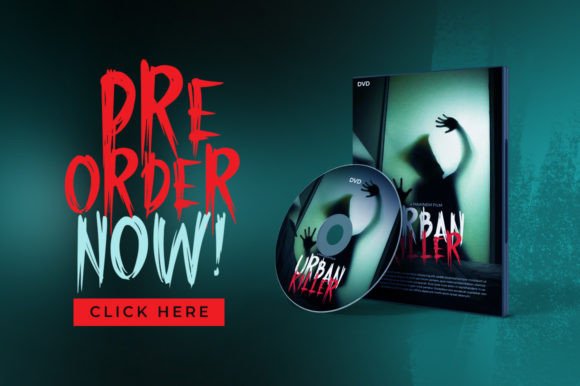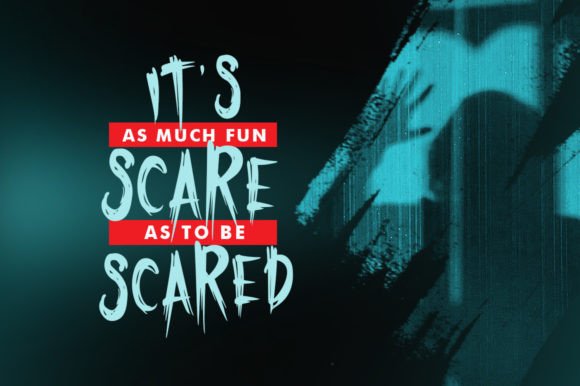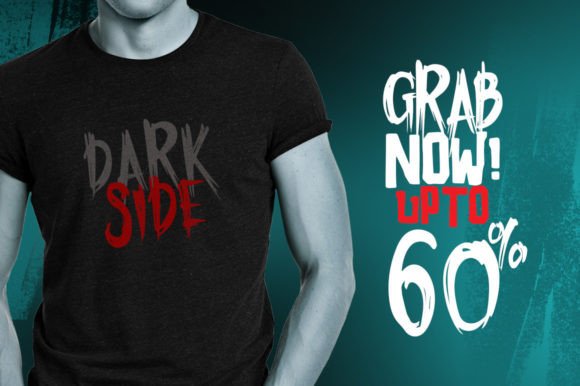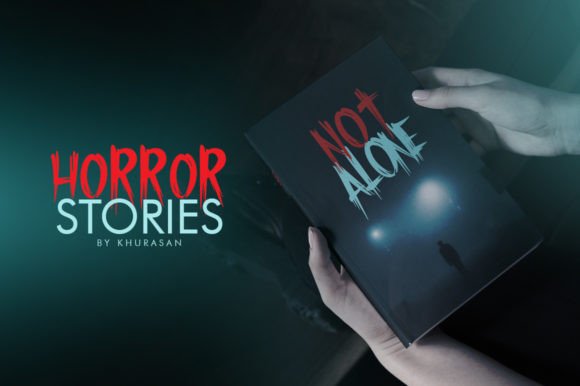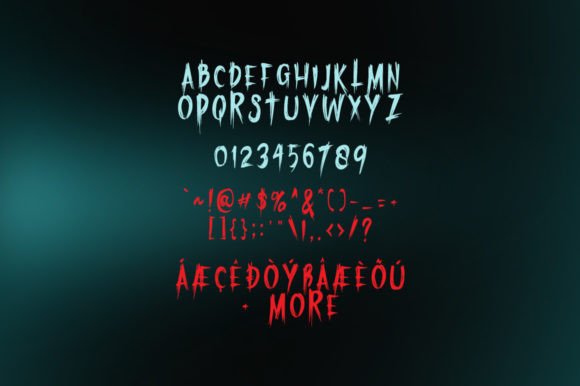
Unleash the Fear with Friday Terror Font: A Spooky Display Font for Horror and Halloween Designs
Are you a designer or crafter looking for a font that will add a touch of horror and spookiness to your designs? Look no further than the Friday Terror Font. This unique and attractive display font is perfect for creating eye-catching designs that will leave a lasting impression on your audience. In this article, we’ll take a closer look at the Friday Terror Font, its features, and how you can use it to create terrifyingly good designs.
What is Friday Terror Font?
The Friday Terror Font is a display font designed to evoke a sense of horror and fear. With its bold and eerie lettering, this font is perfect for creating designs that are attention-grabbing and unsettling. Whether you’re designing a poster, flyer, or social media graphic, the Friday Terror Font is sure to make your design stand out.
Key Features of Friday Terror Font
So, what makes the Friday Terror Font so special? Here are some of its key features:
- Unique and Attractive Design: The Friday Terror Font has a one-of-a-kind design that’s sure to grab attention. Its bold and eerie lettering makes it perfect for creating eye-catching designs.
- Versatile: Despite its horror theme, the Friday Terror Font looks great in a variety of contexts. Whether you’re designing a poster, flyer, or social media graphic, this font is sure to fit right in.
- Suitable for Horror and Halloween Concepts: As its name suggests, the Friday Terror Font is perfect for designs with horror and Halloween concepts. Use it to create spooky designs that will leave your audience shivering with fear.
How to Use Friday Terror Font in Your Designs
Now that we’ve covered the features of the Friday Terror Font, let’s talk about how you can use it in your designs. Here are some ideas to get you started:
- Create a Spooky Poster: Use the Friday Terror Font to create a spooky poster for a horror movie or Halloween event. Add some creepy images and you’re sure to create a design that’s both terrifying and eye-catching.
- Design a Haunted Flyer: Create a haunted flyer for a haunted house or Halloween party using the Friday Terror Font. This font is sure to add a touch of horror and fear to your design.
- Make a Creepy Social Media Graphic: Use the Friday Terror Font to create a creepy social media graphic that will leave your followers shivering with fear. Add some spooky images and you’re sure to create a design that’s both attention-grabbing and unsettling.
Tips for Using Friday Terror Font
Here are some tips for using the Friday Terror Font in your designs:
- Use it Sparingly: While the Friday Terror Font is perfect for creating eye-catching designs, it’s best to use it sparingly. Use it as a headline font or to add emphasis to certain words or phrases.
- Pair it with Other Fonts: The Friday Terror Font looks great when paired with other fonts. Try pairing it with a sans-serif font for a bold and modern look.
- Add Some Creepy Images: To really make your design stand out, add some creepy images. This will help to create a cohesive and terrifying design.
In conclusion, the Friday Terror Font is a unique and attractive display font that’s perfect for creating eye-catching designs with a horror and Halloween theme. With its bold and eerie lettering, this font is sure to grab attention and leave a lasting impression on your audience. Whether you’re a designer or crafter, the Friday Terror Font is a great addition to your font collection.